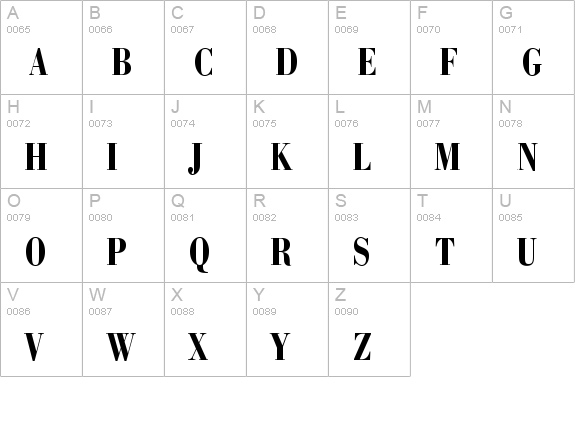
Bauer Bodoni Bold Condensed is a strong, high-contrast, condensed-width variant in the Bauer typeface family \xE2\x80\x94 well suited to headlines, attention-grabbing titles, and strong calls-to-action.
Bauer Bodoni Bold Condensed font is a striking typeface that exudes elegance and sophistication. With its bold weight and condensed design, this font is perfect for making a statement in headlines, titles, and branding materials. The sharp serifs and distinctive letterforms of Bauer Bodoni Bold Condensed command attention and add a touch of class to any project. And the best part? Bauer Bodoni Bold Condensed font is available for free download at FontsMarket.com. Whether you're a designer looking to add a touch of luxury to your work or a business owner seeking a standout font for your branding, Bauer Bodoni Bold Condensed is the perfect choice. Download this exquisite font today and elevate your design projects with its timeless appeal.